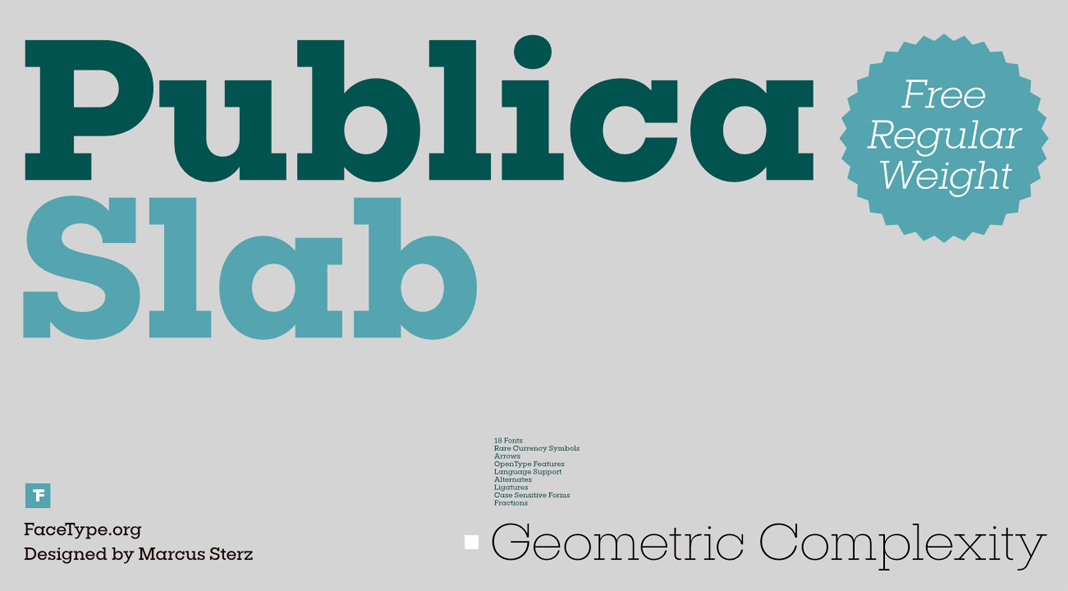
Publica Slab font family, the youngest sister of Publica Sans and Publica Play.
Designed in 2017 by Marcus Sterz for foundry FaceType, Publica Slab is a new serif version of the popular fonts Publica Sans and Publica Play. The family comes with 9 weights plus matching Italics ranging from Extra Light to Black. Furthermore, it has been equipped with lots of OpenType features including case sensitivity, numerators, denominators, superscript, subscript, stylistic sets, alternates, and ligatures. The different weights work great in versatile applications such as signage, corporate design, and editorial work. Read more about the individual features below.
Alternate Characters.
With alternate letters you can give your typographic work a more individual look.
Currency Symbols.
The family also includes a range of rare currency symbols.
Case Sensitive Forms.
Case sensitive forms allow you to give your typographic work some extra treatment to make it look perfect.
Figures.
Publica Slab includes 6 sets of figures such as lining, tabular, oldstyle, numerators, etc.
Discretionary Ligatures.
Whether in titles or texts, ligatures give your work an even more spicy look.